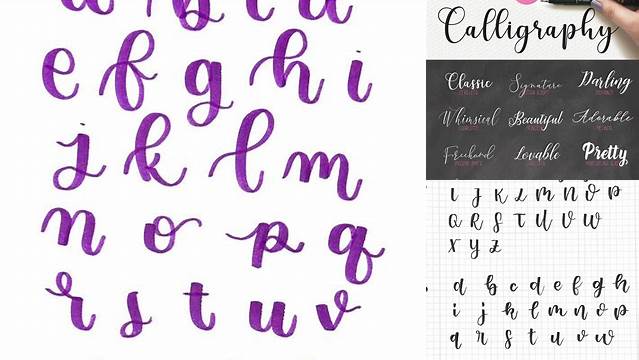
Calligraphy Fonts A To Z: Easy Guide
Hey guys! Ready to dive into the wonderful world of calligraphy fonts? It's a fantastic journey that combines art and writing, letting you create stunning visuals. Today, we're going to make it super simple for you. We'll explore the calligraphy fonts A to Z, making it easy to understand and use them. No confusing jargon or overwhelming techniques – just a straightforward guide to help you start your calligraphy adventure. Whether you're a complete newbie or someone looking to refresh their skills, this guide has something for everyone. Let's get started and unlock the beauty of each letter!
Understanding Calligraphy and Its Fonts
Alright, before we jump into the calligraphy fonts A to Z, let's quickly cover the basics. Calligraphy is essentially the art of beautiful writing. It's not just about writing letters; it's about crafting them with intention, elegance, and style. The key is to use a specific set of tools and techniques that give each letter a unique character. There are several types of calligraphy, each with its own distinctive look and feel. Some popular styles include Copperplate, Spencerian, and modern calligraphy. Copperplate is known for its elegant, flourished letters, while Spencerian is more formal, with a focus on precision and consistency. Modern calligraphy is more relaxed and experimental, allowing for creativity and personal style. Each style uses different pens, nibs, and inks to achieve a specific visual effect. The tools you use and how you use them will significantly affect the final look of your work. Calligraphy fonts are designed to mimic these hand-drawn styles, allowing you to achieve the same look digitally. They come in various forms, from traditional scripts to modern, artistic interpretations. When you choose a calligraphy font, consider the style and the message you want to convey. You want to pick a font that complements your project. Whether you're creating invitations, designing logos, or just adding a touch of elegance to your documents, understanding the different styles will allow you to choose the perfect font for your needs. Choosing the right font will enhance your work.
Calligraphy fonts differ significantly from regular fonts. Regular fonts are typically designed for readability and consistency. Calligraphy fonts, on the other hand, focus on aesthetic appeal and artistic expression. They often feature flowing strokes, varying line weights, and unique letterforms that capture the essence of handmade calligraphy. This difference impacts how you use these fonts. They are often used for headings, titles, and decorative elements. Using a calligraphy font in a large block of text can sometimes make it difficult to read, so it's best to use them sparingly. When choosing a calligraphy font, consider the context in which you'll use it. For example, a wedding invitation might call for an elegant, flowing script, while a modern design might benefit from a more contemporary font. You should play around with different fonts and experiment with different designs. Understanding the nuances of calligraphy fonts will help you create visually appealing and effective designs. Pay attention to the details, like the spacing, kerning, and overall flow of the letters. Small adjustments can significantly impact the final look of your work. Practice using these fonts to get comfortable with their unique characteristics and learn how to make the most of their beauty.
Calligraphy Fonts A to Z: Your Font Showcase
Let's get to the fun part! Here's your calligraphy fonts A to Z showcase. I've included some of the most popular and versatile calligraphy fonts to help you get started. I will provide a brief overview of each to give you an idea of its style and potential uses. I encourage you to experiment with these fonts and find the ones that resonate with you. There's a lot of them out there to try!
- A - Adrenaline: A bold, expressive font perfect for grabbing attention. It's great for headlines and titles. The design of each letter makes it stand out.
- B - Blacksword: Offers a combination of elegance and edginess. It's ideal for projects that need a touch of sophistication with a modern twist. The contrast between thick and thin lines adds a visual interest.
- C - Champagne & Limousines: This is a script font that oozes romance and grace. It is suitable for wedding invitations and any project that requires a touch of formality.
- D - Delmora: A delicate, flowing script that's both beautiful and easy to read. Great for creating elegant designs, such as stationery or branding materials.
- E - Ever After: This is a whimsical and charming script font that brings a sense of playfulness. Great for designs that want to be fun and friendly.
- F - Featherly: Captures a sense of freedom and artistic flair. The font is perfect for designs that require a unique handwritten touch.
- G - Great Vibes: A charming, bouncy script font that brings a friendly touch to your work. The font is ideal for websites and social media graphics.
- H - Hello Honey: This is a sweet and modern font with a touch of friendliness. This font is an excellent option for various projects.
- I - Italianno: This is a classic and elegant font that looks sophisticated. The font is perfect for traditional projects.
- J - Just Lovely: A clean and modern calligraphy font with a smooth flow. This font looks great for logos or headings.
- K - King Basil: This is a stylish and versatile font that suits many applications. The design of each letter creates a professional look.
- L - Lovely Home: Offers a blend of elegance and readability. This font works perfectly for both digital and print designs.
- M - Magnolia Sky: Offers a touch of natural beauty to your design. The design adds personality and charm to any project.
- N - Northwell: This font combines elegance and simplicity. The font is great for creating a modern aesthetic.
- O - Olivia: A graceful and sophisticated script font. The font is ideal for stylish branding materials.
- P - Playlist Script: The font is casual and fun. It adds a touch of playfulness to any design.
- Q - Quickpen: A modern script font, the font is both stylish and easy to read. The font works well for various projects.
- R - Rochester: Offers a vintage charm. The font adds a nostalgic touch to your designs.
- S - Sacramento: A classic and elegant script font with an open feel. This is an excellent choice for a professional look.
- T - The Historia: Combines elegance and a touch of history. The font is perfect for projects that need a vintage feel.
- U - Unwritten: This is a versatile font that is great for logos, headings, and more. The font adds a unique touch to your project.
- V - Valentina: A beautiful and flowing script font. This font looks sophisticated and professional. This is a good font for creative projects.
These resources and tools will help you enhance your calligraphy skills and create beautiful designs. You are on the right track!
So, there you have it – your calligraphy fonts A to Z guide to beautiful lettering! We've covered the basics of calligraphy, explored various fonts, and provided tips on how to use them effectively. Remember to experiment, practice, and most importantly, have fun. Embrace the beauty of each letter and let your creativity shine. Enjoy the journey and create something amazing!